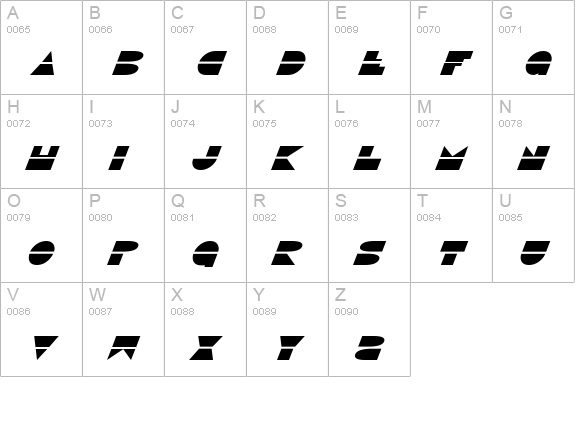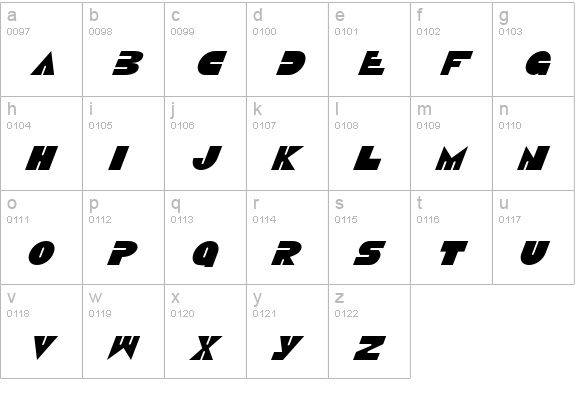
Disco Duck Italic is a distinctive, italic variant in the Disco typeface family \xE2\x80\x94 well suited to design and typography projects.
Introducing Disco Duck Italic font, a playful and vibrant typeface that brings a touch of retro charm to your designs. This italic version of Disco Duck exudes a sense of movement and energy, perfect for adding a dynamic flair to your projects. With its sleek curves and stylish angles, Disco Duck Italic is a versatile font that works well for a variety of design applications. Best of all, Disco Duck Italic is available for free download at FontsMarket.com. Whether you're working on a poster, logo, or social media graphic, this font is sure to make a statement and elevate your designs. Don't miss out on the opportunity to add Disco Duck Italic to your font collection today!